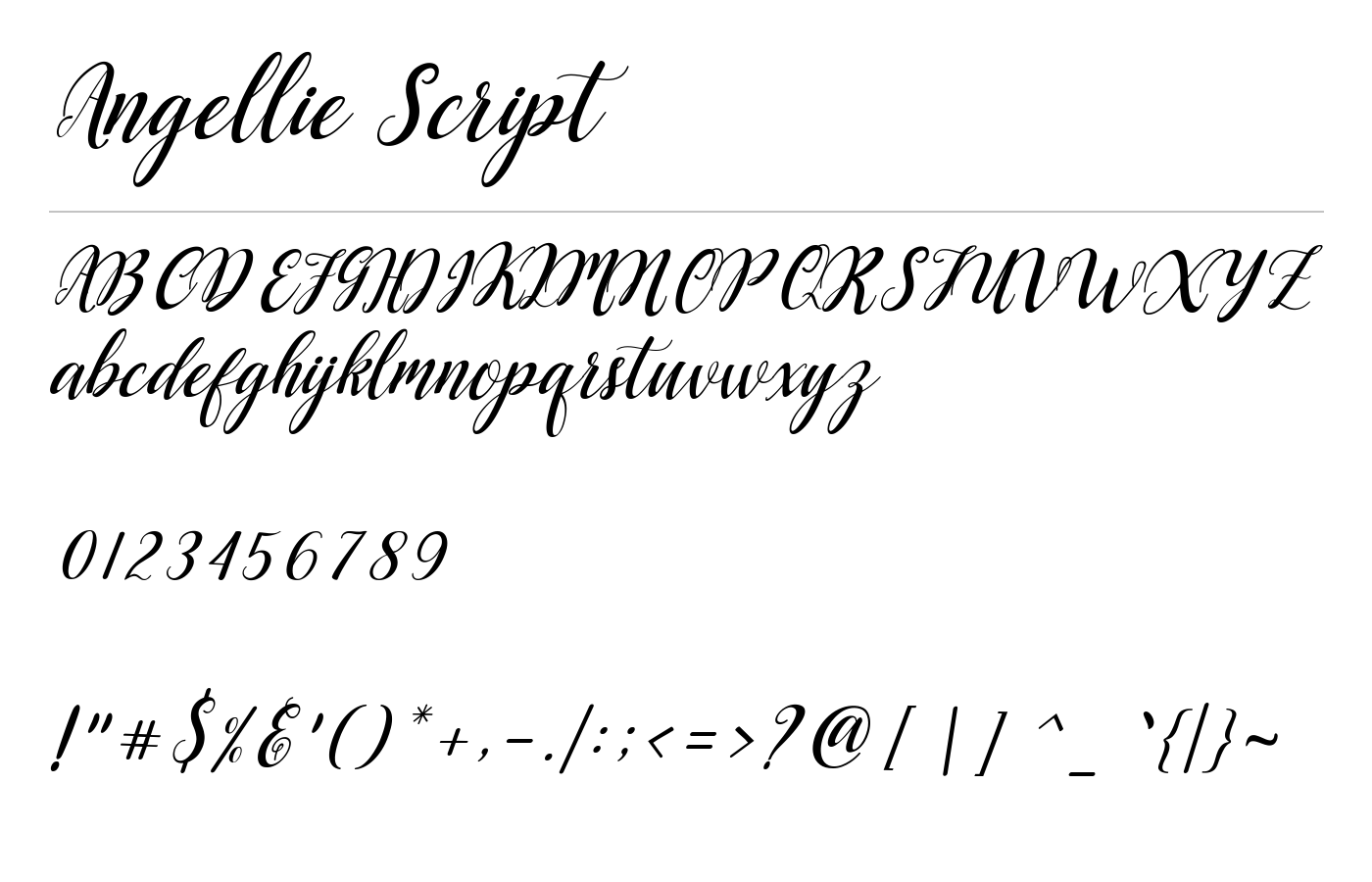
Angellie Script is an elegant, flowing script font characterized by its high contrast between thick and thin strokes and graceful, calligraphic letterforms. Its refined style and delicate curves make it perfect for luxury branding, wedding invitations, and sophisticated editorial use, where a touch of classic beauty and charm is desired. This font shines in headlines and logos that seek a romantic, stylish, and polished appearance.
Angellie Script Font